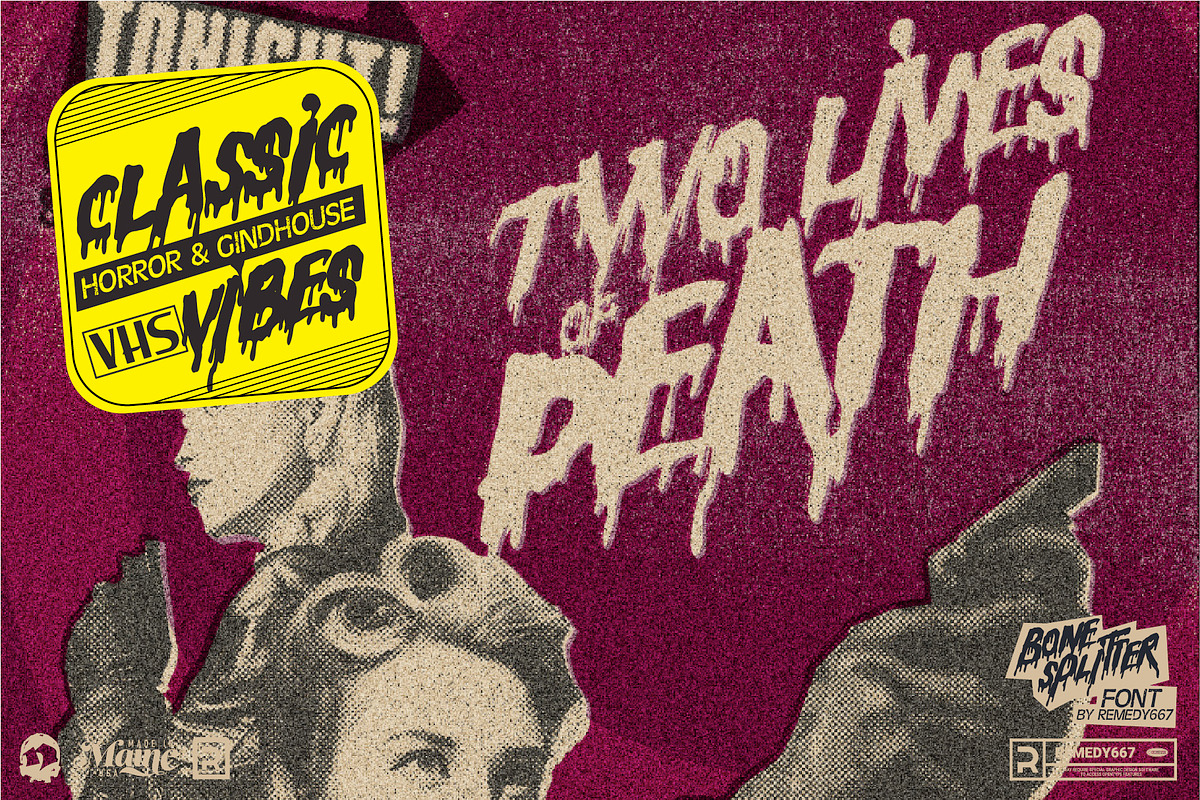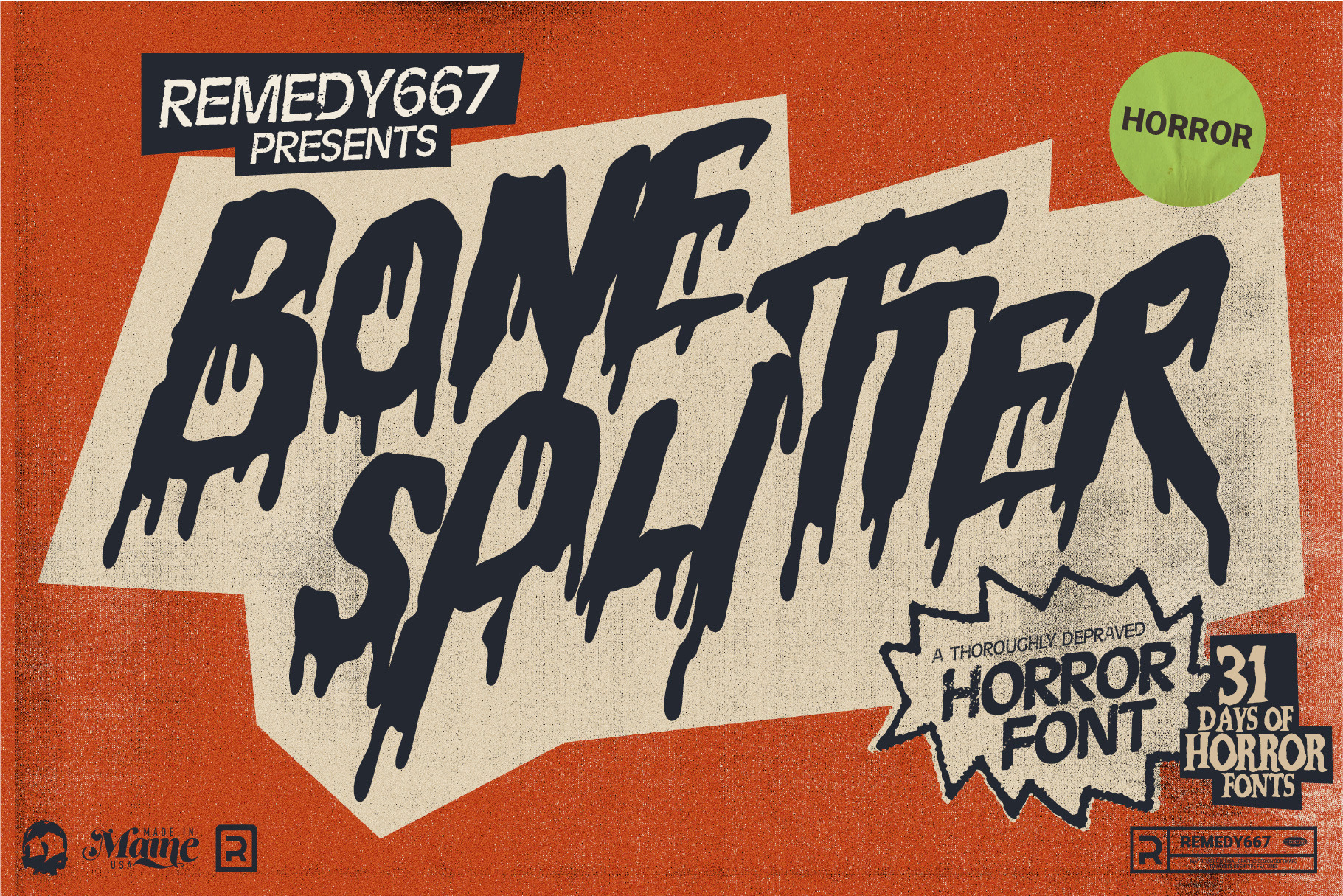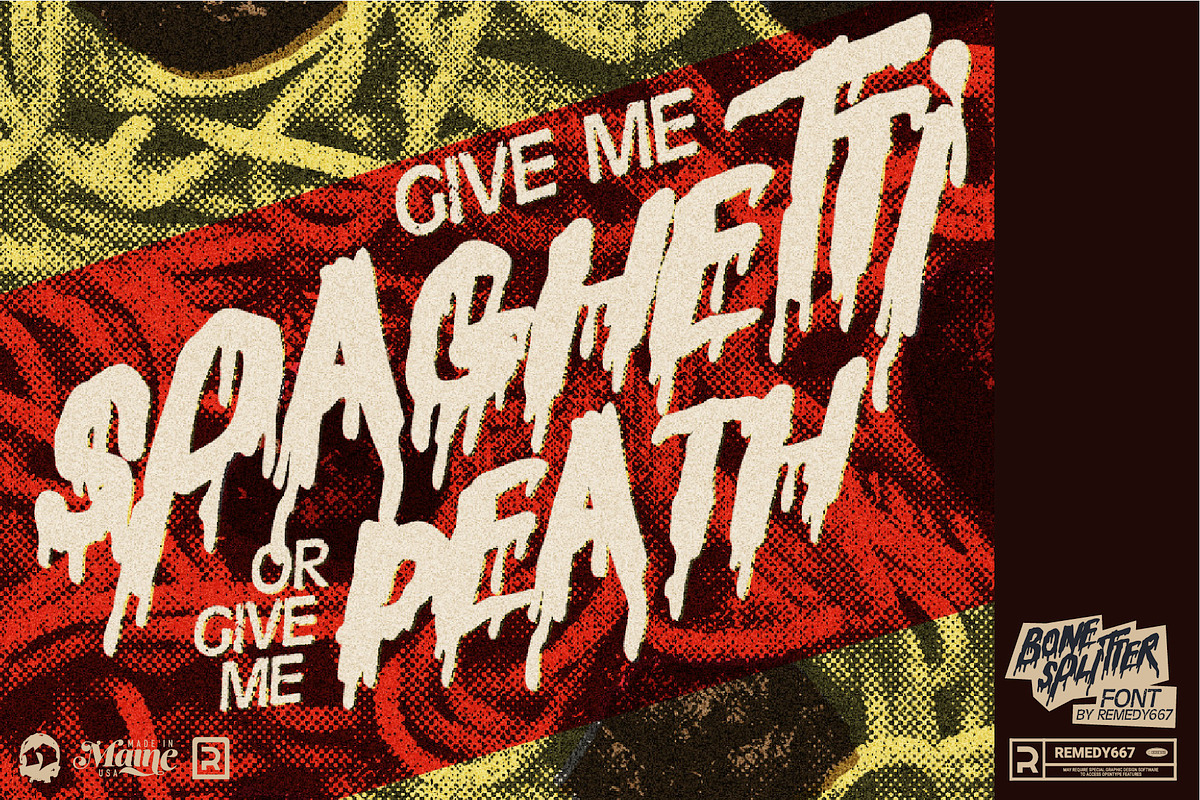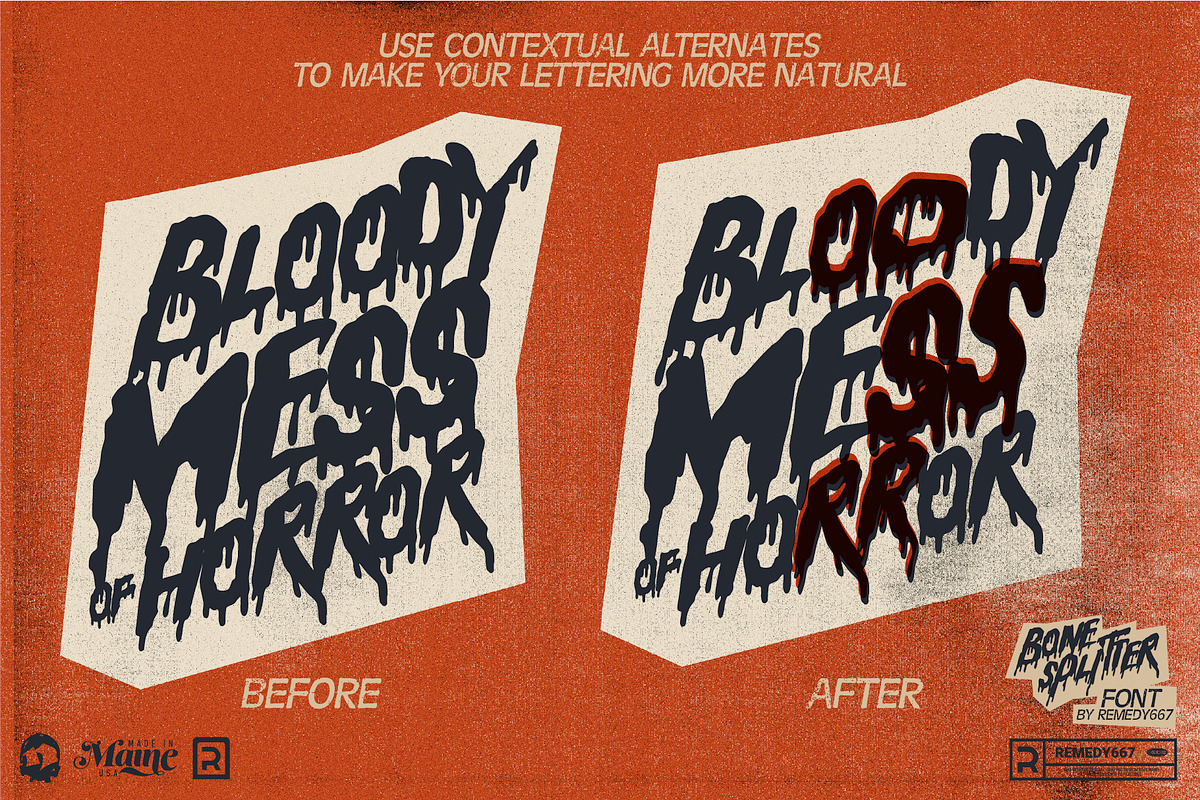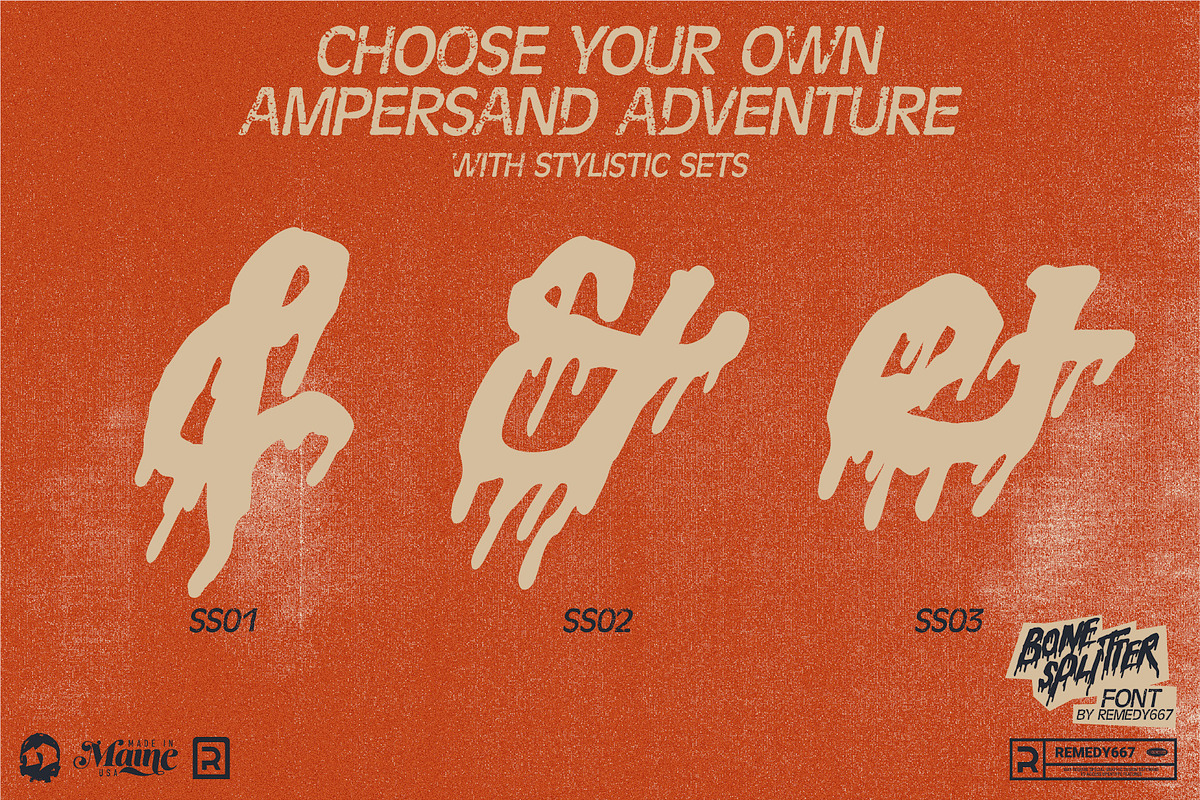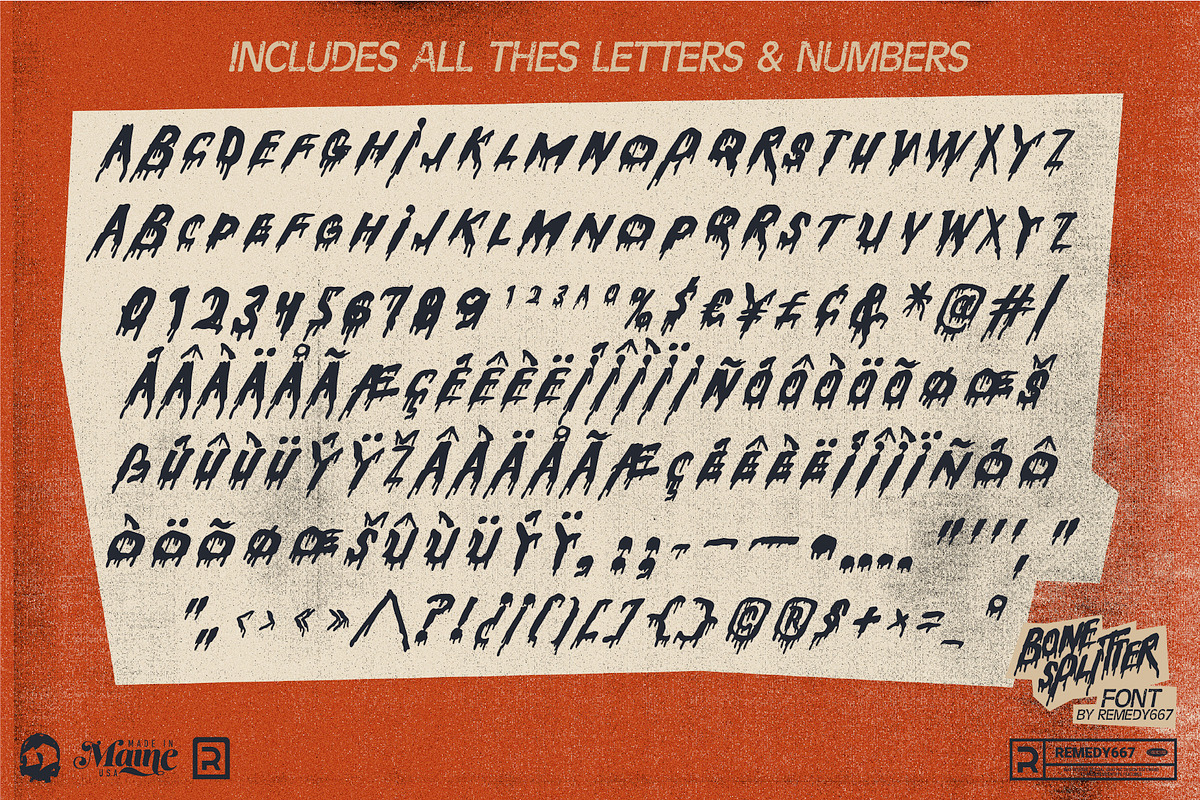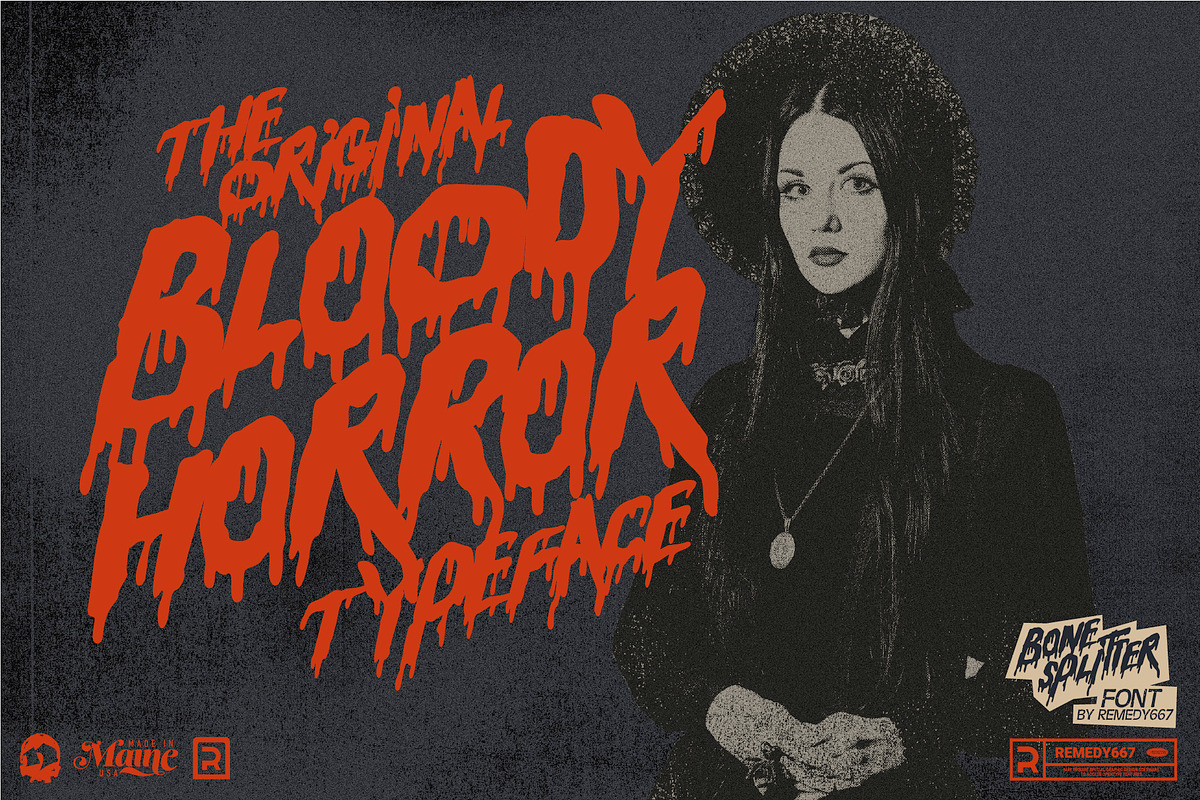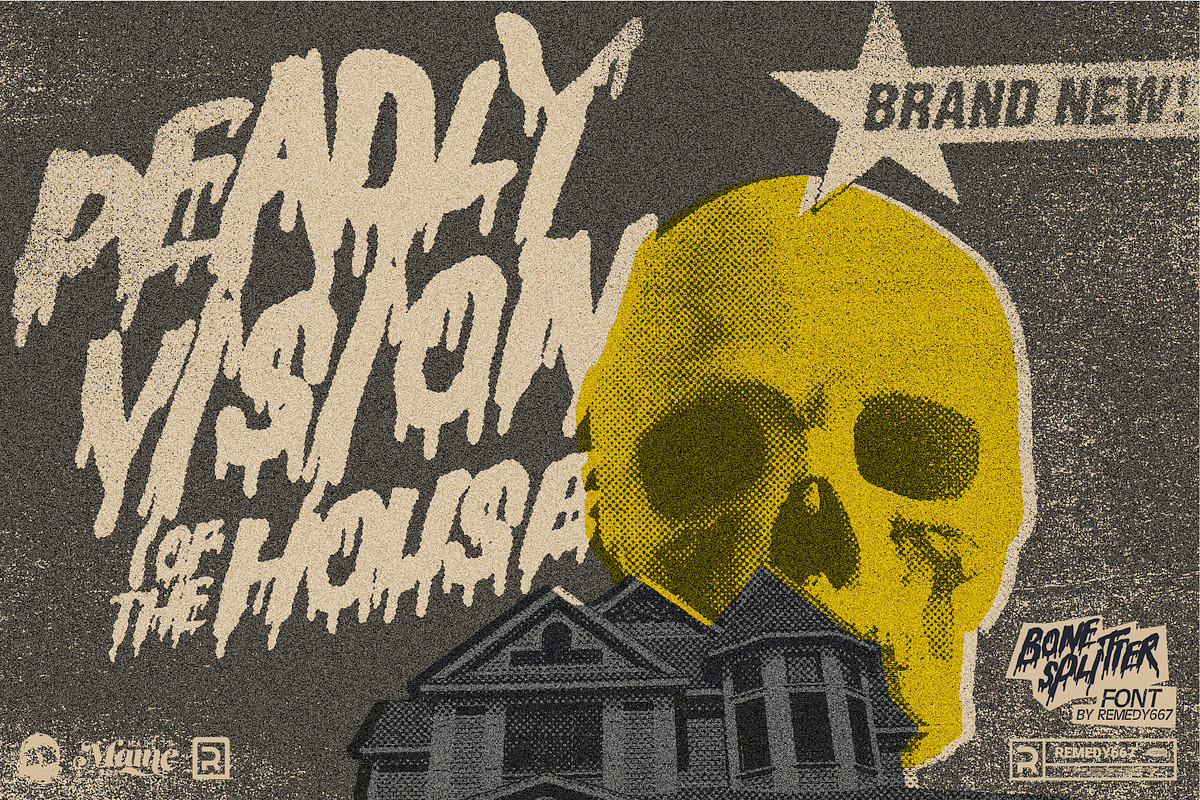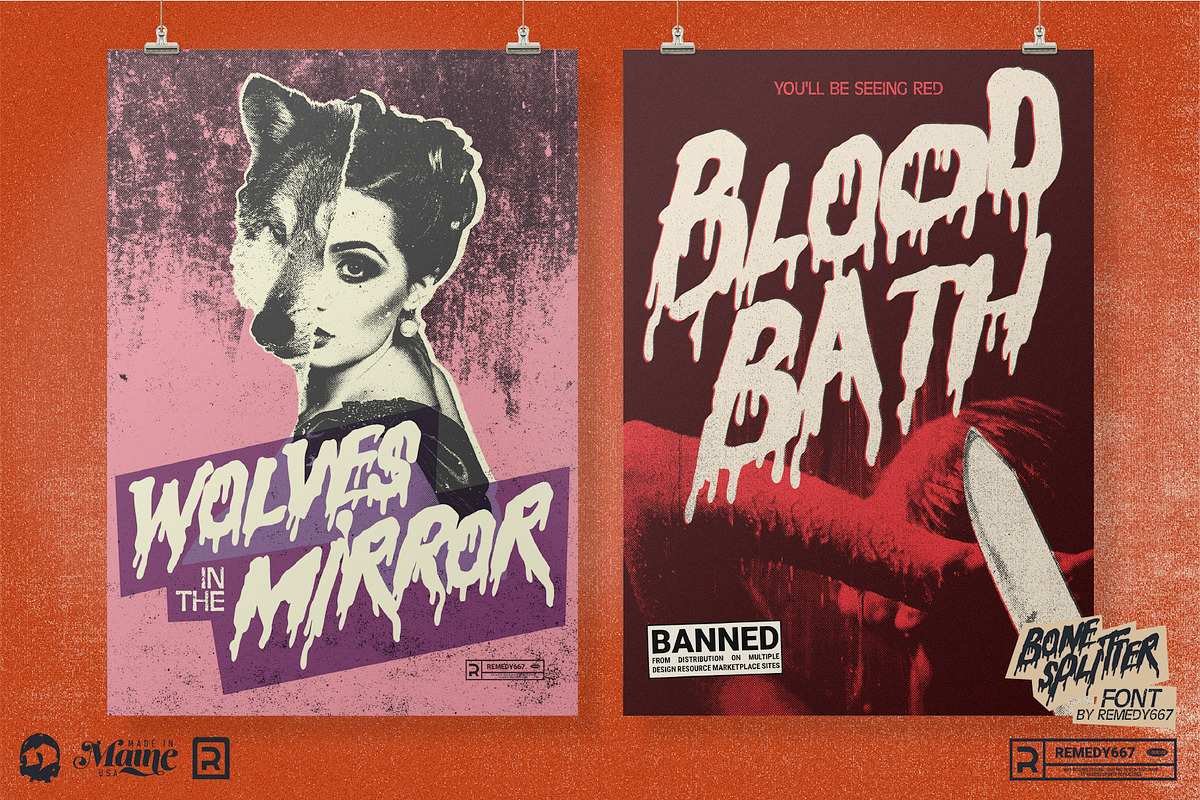
Bone Splitter - Horror Font
The Original Bloody Horror Typeface! Bone Splitter is the perfect typeface for horror movies, graphic artists, and all who love the undead. It's great for any type of project that needs that perfect touch of blood and death, like video game titles, posters, apparel, album artwork, horror movies, etc.
Are you looking for a font that will really give the perfect feel of the horror genre to your project? Bone Splitter is the font for you, with its signature bloody font style. Take some time to design something terrifying with Bone Splitter.
- Doubles Elimination gives you a more natural look.
- Bold, eye-catching design to grab the attention of customers.